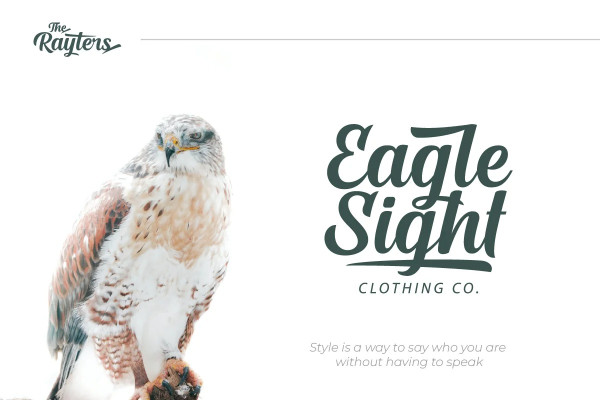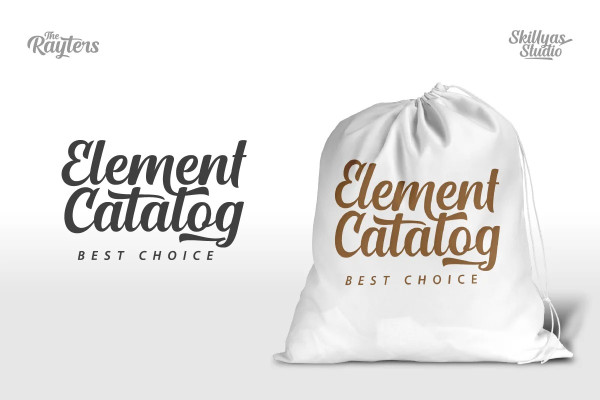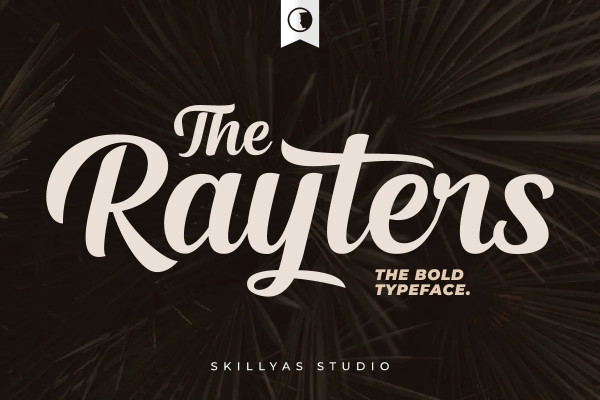
Rayters Font
Rayters Font, is a Modern bold script. Rayters is handcrafted Carefully with smooth curves so this font is great for Branding, Logo Design, Lettering, Logotype, Clothing, Poster, magazine, and another design project.